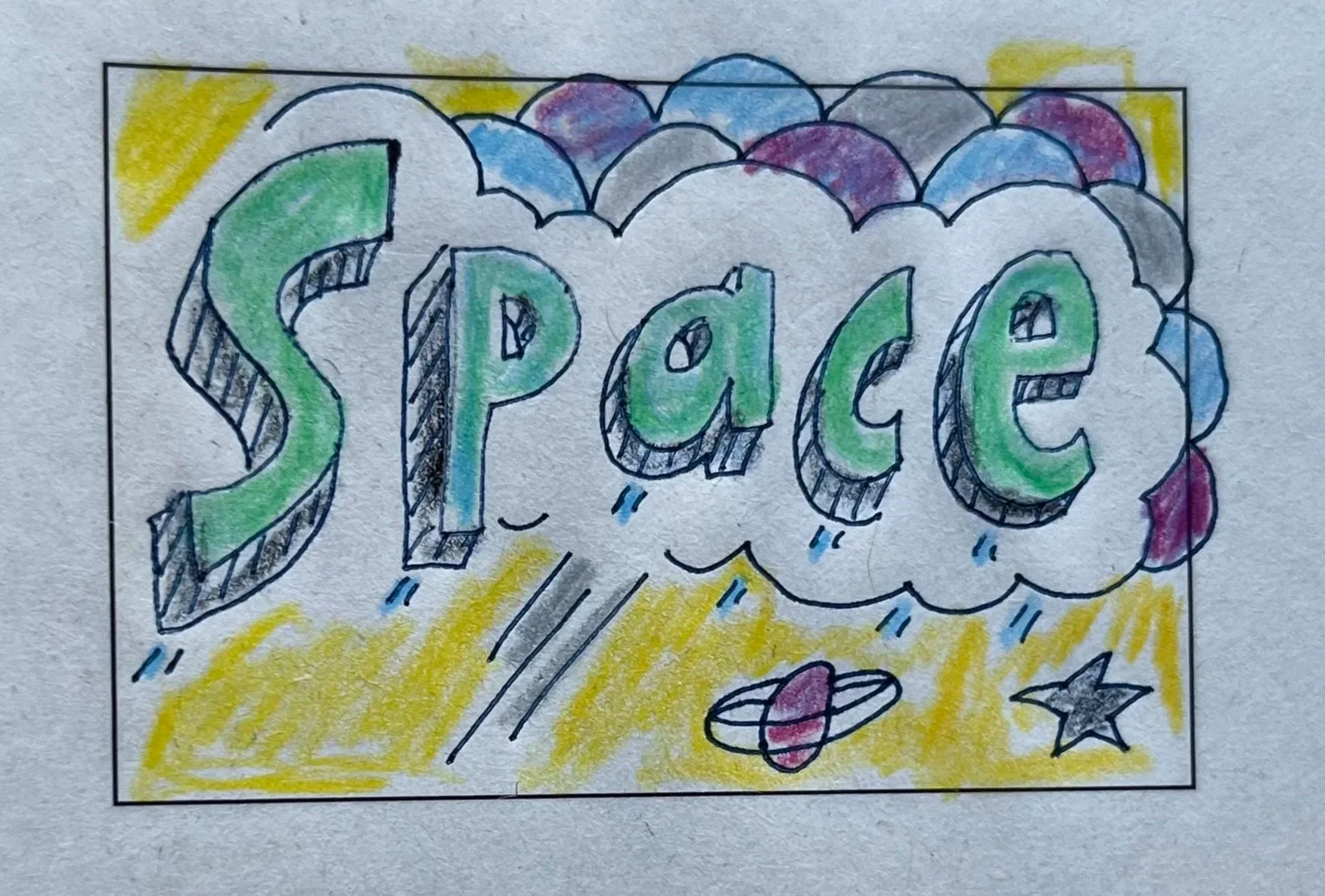
I love the series For All Mankind streaming on Apple TV. It’s a fictional take on the space race between the United States (US) and Union of Soviet Socialist Republics (USSR) from the American point of view. The first season is set in the 1960s. Every seasons is set in subsequent decades. Every season presents an advancement in space travel. Eventually humanity makes its way to Mars. It’s a fascinating series.
The show is so good it has a spin off called Star City. It’s the space race from the Soviet point of view. It’s off to a very good start. Space stuff and spy craft in every episode, Star City highlights the tensions between military officials and employees as the government wants the country to be the first to space and beyond. So far they landed Venus. It was a tragic event.
If you’re a fan of the space program, watch both shows. If you like science fiction rooted in contemporary events, watch both shows. If you’re curious by human relations and interactions, definitely watch both.
Hand lettered word “space” in deep blue ink on newsprint. Includes a planet, star, and a nebula surrounding the word.